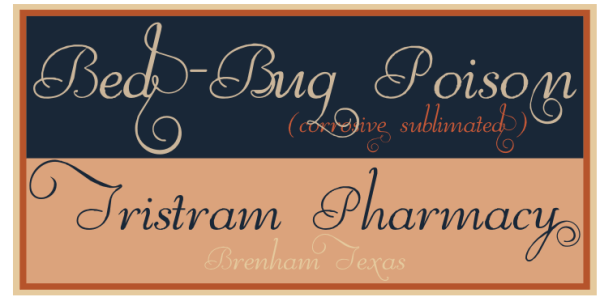
Reliant is a somewhat more formal script type font, but it does offer those fancy ligatures that allow flowing embellishments such as those popular on blackboard/chalkboard designs and occasions like weddings. Pair with a nice, plain, sans serif font and use Reliant for impact. See an example below. The font contains diacritical marks, too. On sale at the moment, you can get the regular and bold versions of Reliant for $4.94 each. Have fun!
Reliant